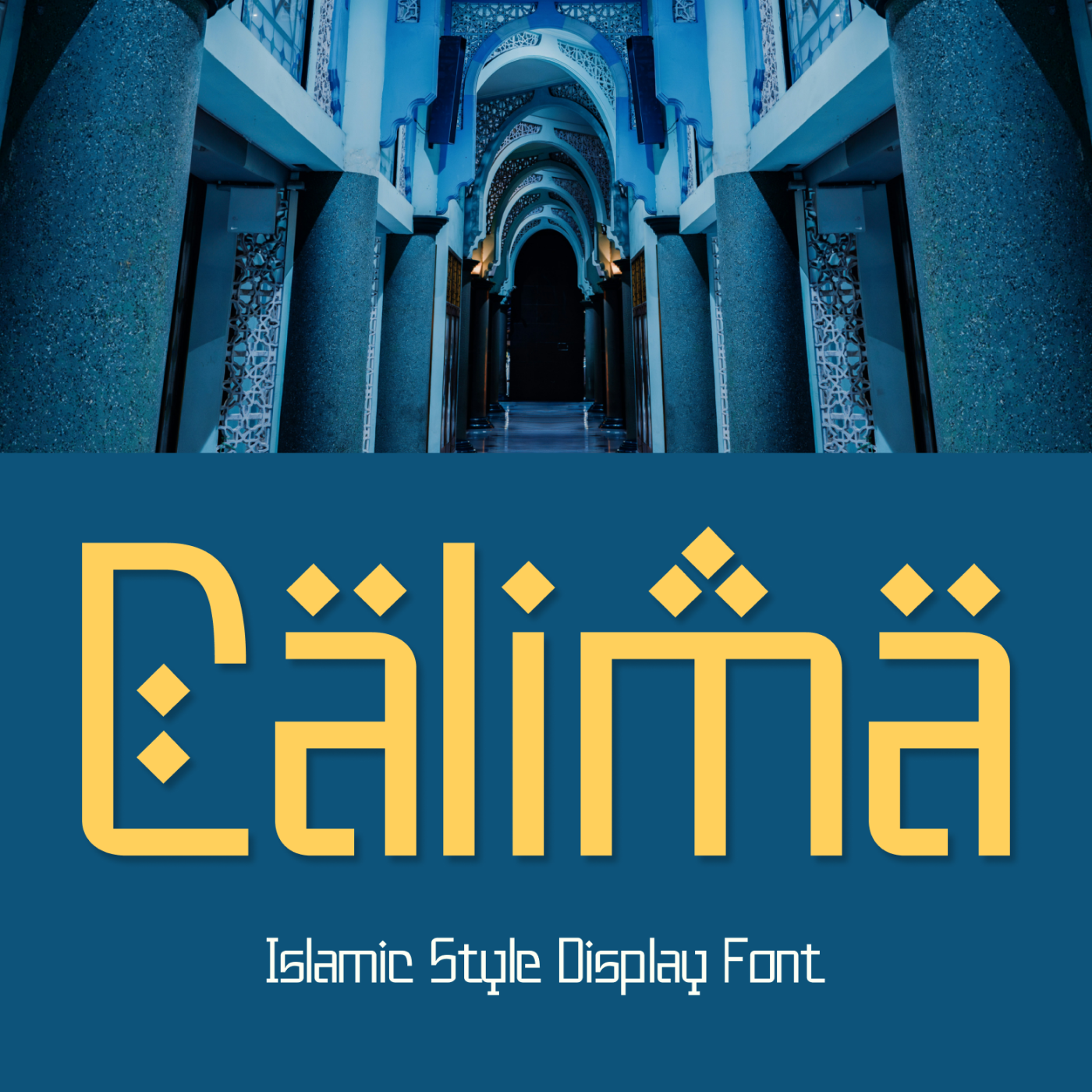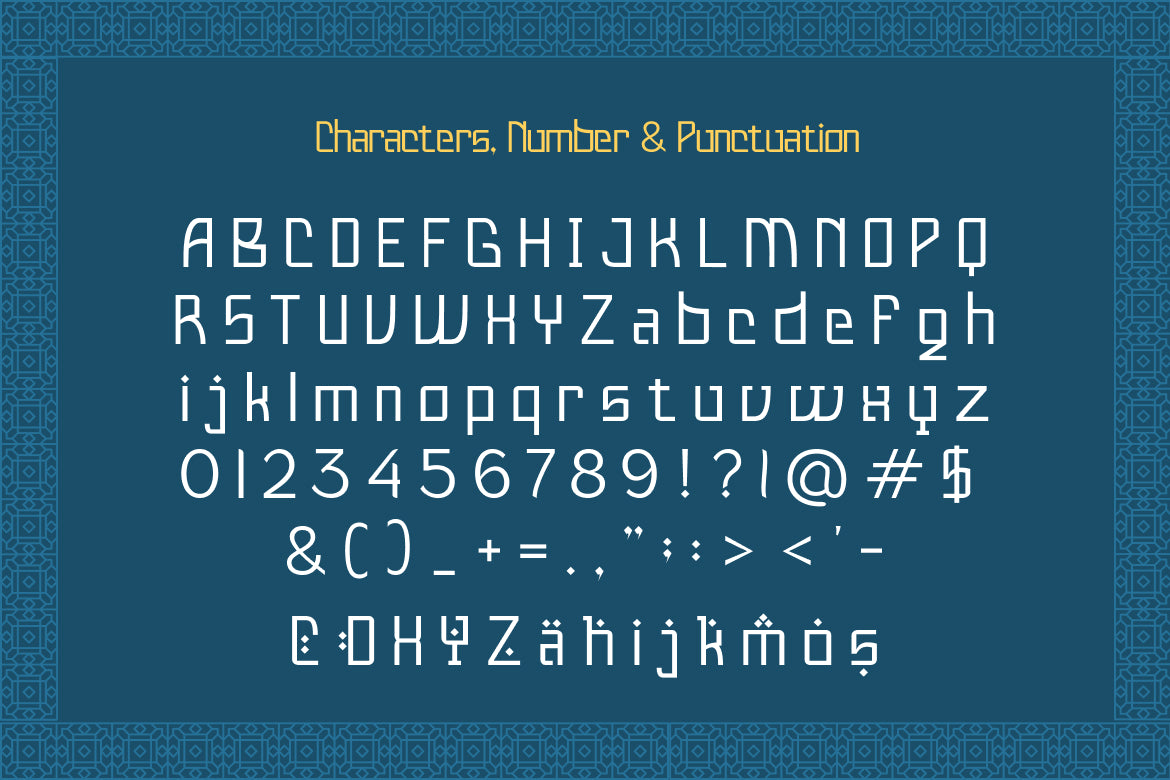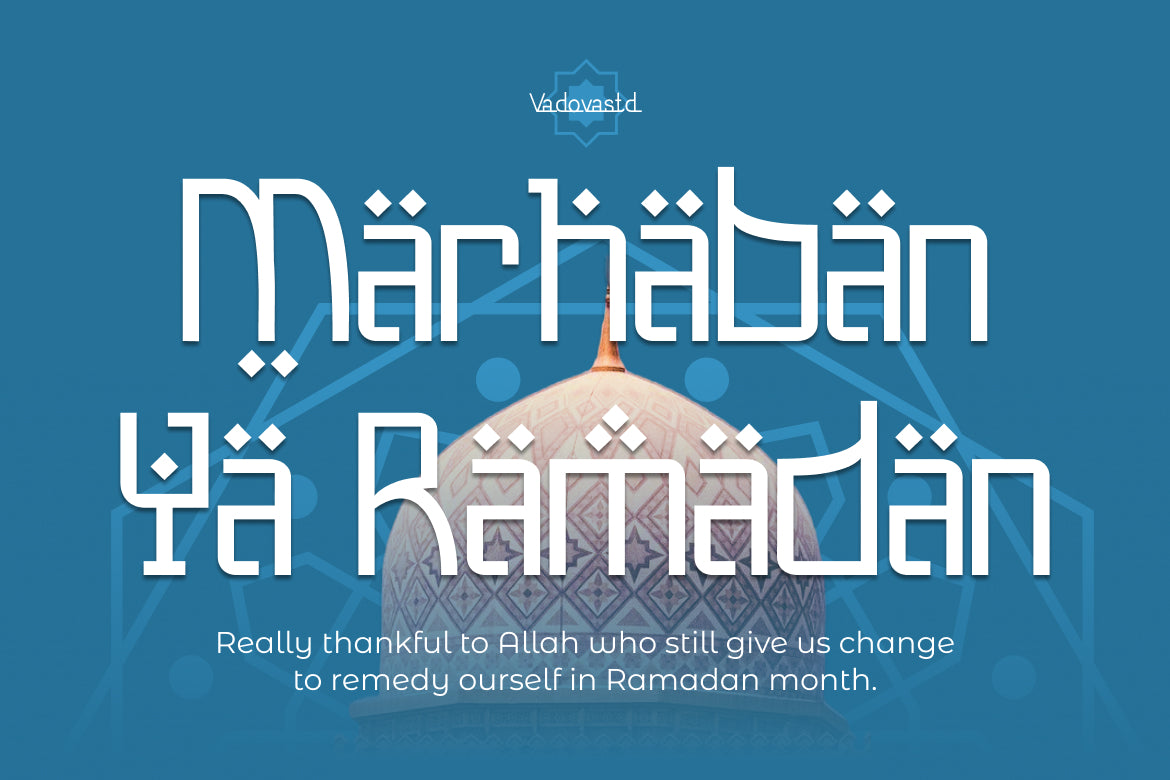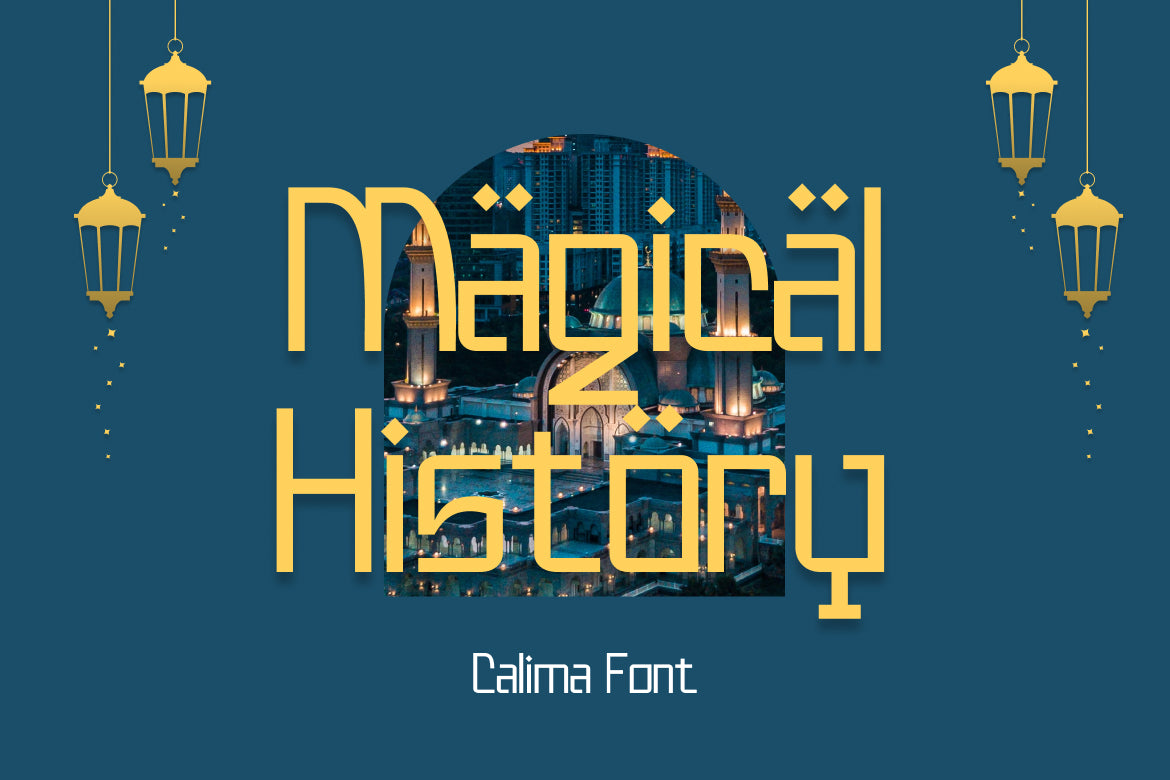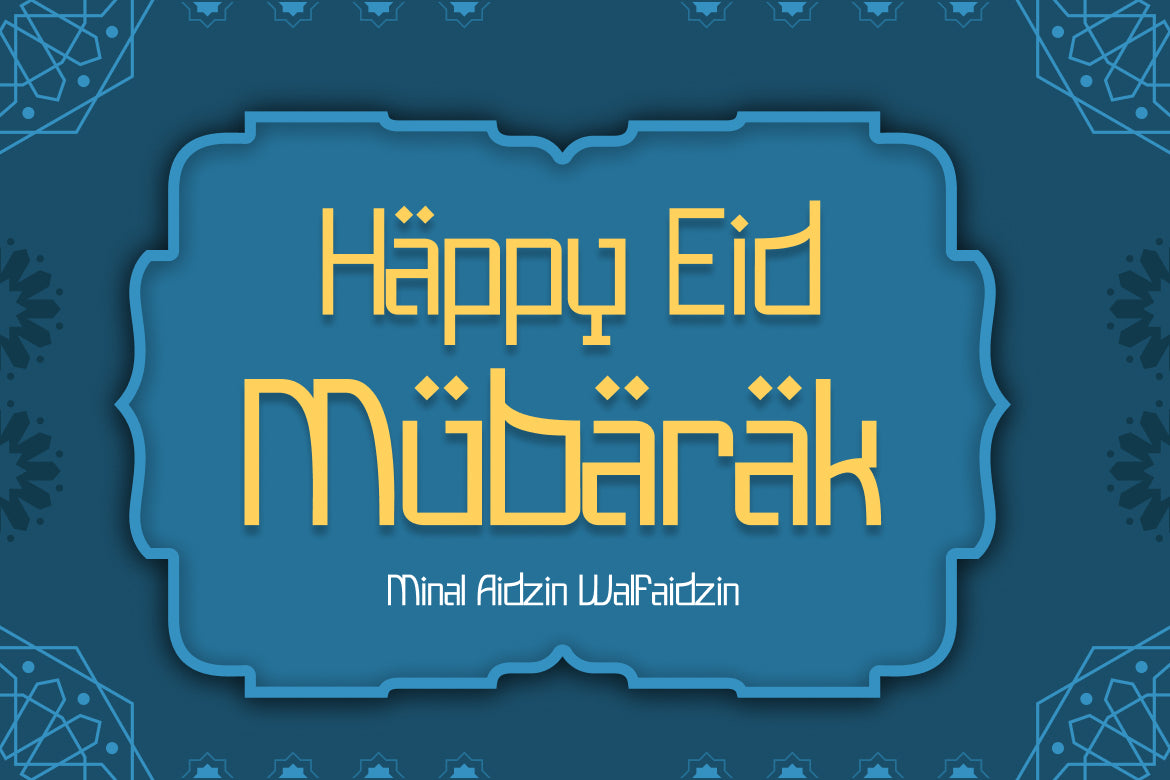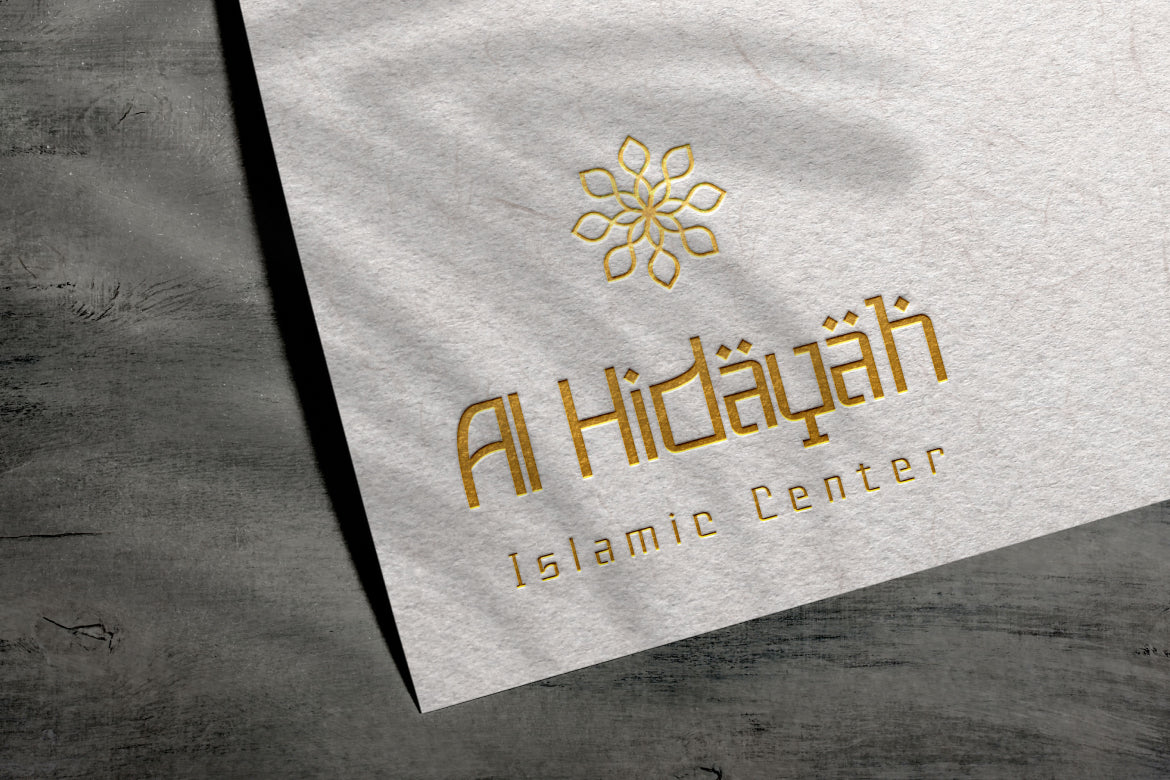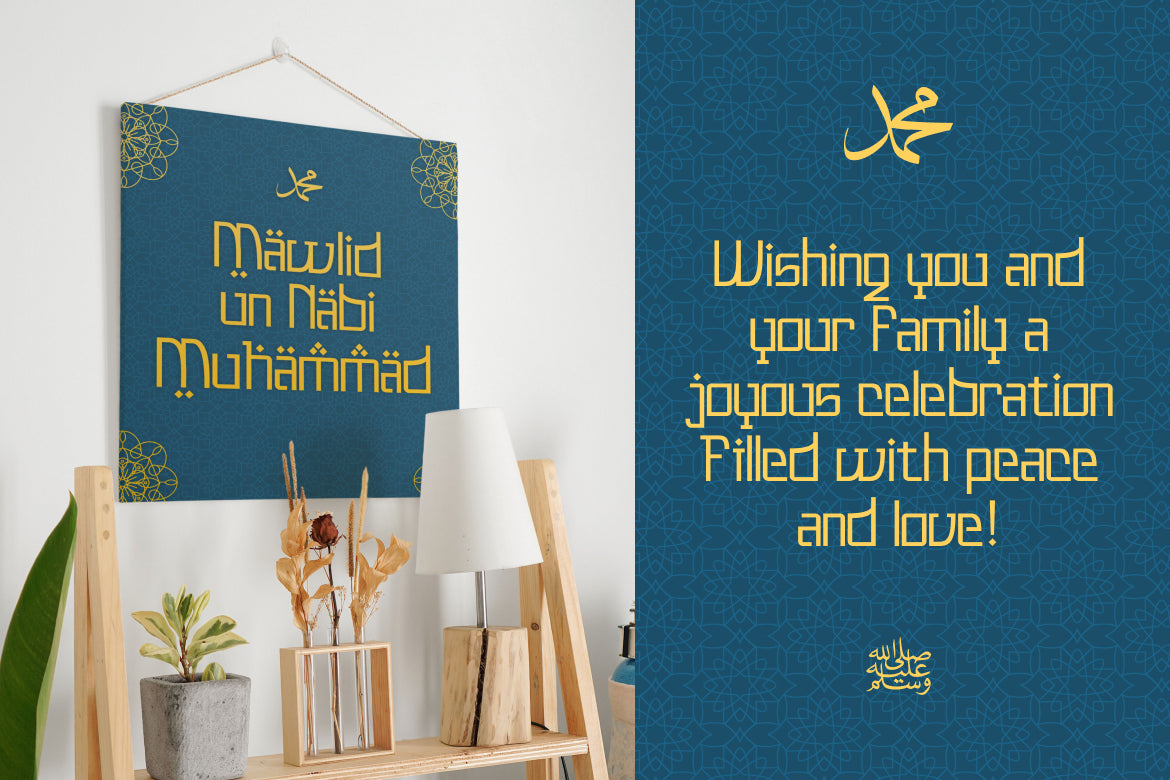
Calima Islamic Font
Calima Islamic Font is a bold display font that gracefully blends Islamic ornamental aesthetics with clean, modern design. With its symmetrical, geometric construction and elegant line work, Calima feels sacred, timeless, and cutting-edge all at once. Perfectly suited for Ramadan campaigns, mosque branding, Middle Eastern packaging, Arabic festival events, and Islamic art posters, Calima brings both spiritual warmth and contemporary flair. Its diamond dot diacritics and modular forms make it culturally relevant while still universally appealing.
Calima Islamic Font is a bold display font that combines Islamic ornamental aesthetics with modern design, featuring symmetrical geometric construction and elegant line work. It includes uppercase and lowercase characters, numerals, and punctuation, and is available in TTF, OTF, and WOFF formats.